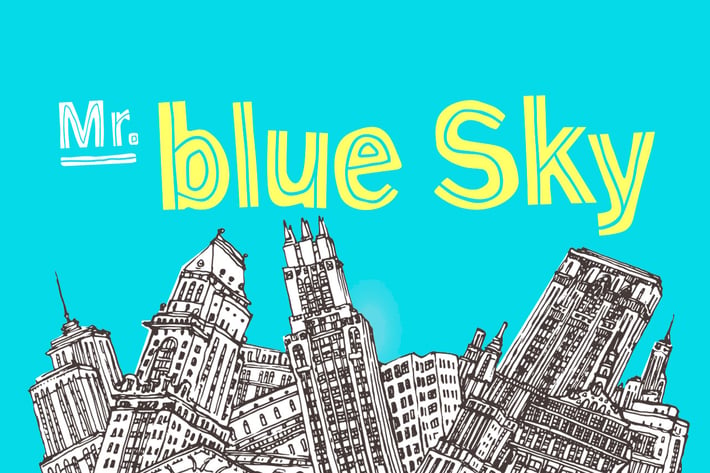
Mr Blue Sky Font
Mr. Blue sky is a handmade Gothic sans-serif display typeface. It has a quirky, playful and fun feeling.
Usage
Use it at large point sizes for headings. It's ideal for logos, posters and packaging but is adaptable enough for a wide range of design work.